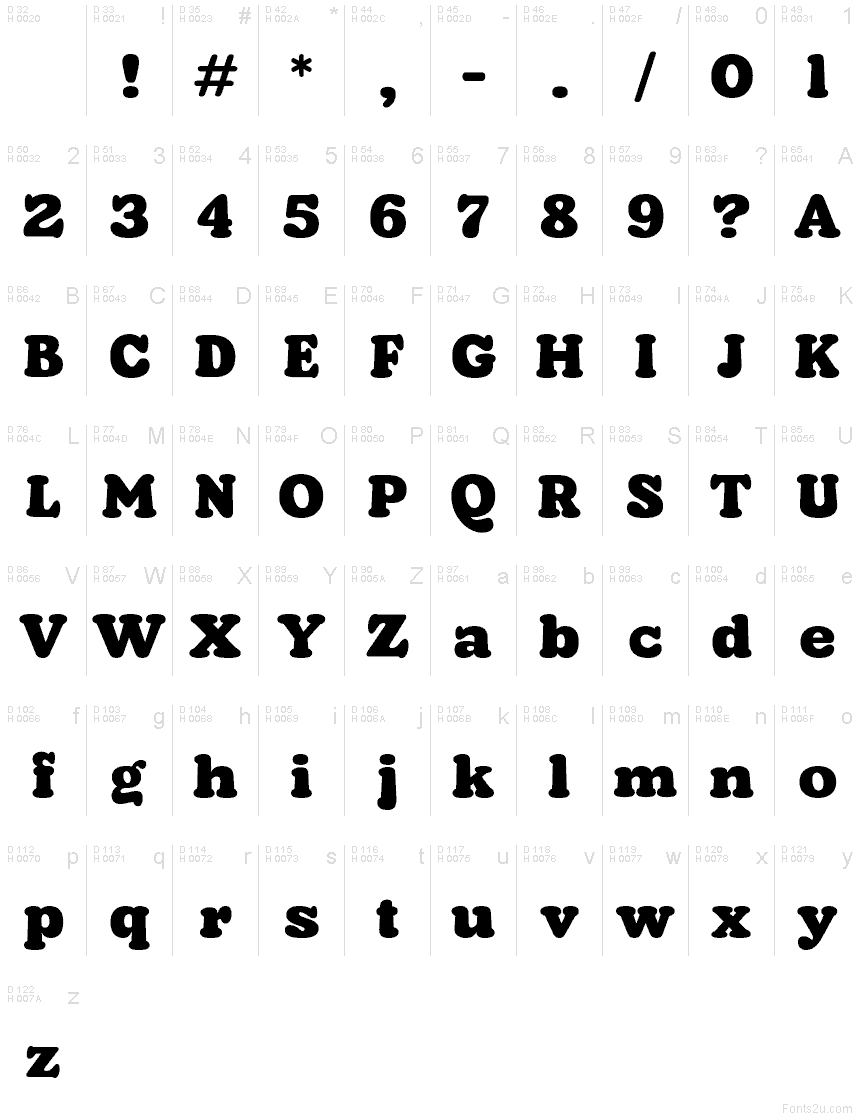
New Value Regular DEMO
New Value font by Studio Gulden is a free retro serif typeface with a deliciously plump silhouette—thick strokes, rounded corners, and inky, teardrop-like terminals that feel almost pressed into the page. It has a buoyant rhythm that reads bold and friendly rather than loud, giving headlines weight without the glare. The curves stack neatly, so even short words feel like sturdy, well-cast badges.
Using New Value, you get that vintage sign-painter warmth for posters, beverage labels, album covers, event flyers, merch, and playful packaging. This free font shines at larger sizes, where the soft serifs and chunky bowls show their texture. Pair it with a lean grotesque for body copy, and let New Value set the headline at around 120–140% letter spacing for an airy, confident look.